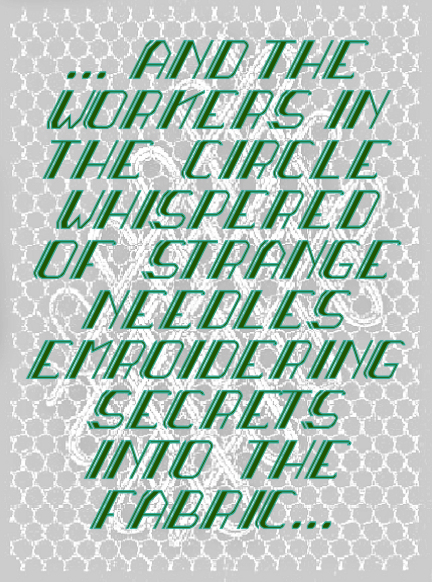
•  I wanted to try some 'deformation' of the perspective used for italic glyphs. It was fun to try, the font looks amusing and the slants are irreverent enough. I know that a word processor could change Raysan into an italic style but a word processed Raysan would be too predictable and without creative spark.
Despite the purposeful changing of lines specially the curved sections which don't follow any "perspective rule" this font looks italic. It has a pleasant rythm in longer headlines etc, and gives eye catching 'splash' text when used with the parent font.
It took quite a while to finish, I constantly fought the wish to make composites and stacks to get the correct shape and directions into the curves.
It's beautiful. I can even imagine a clone with an outlined dot in the middle (that'd add to the elegant/rich style, perhaps)…
… a black static bullet, that is (vs a white mobile flower in your very nice "Raysan Decor").
Is the slant 30* or 45*?
* = degrees
@xXx XBox Gamer - Just eyeballing the L and T, I'm guessing it's a 30°-60°-90° set of angles for the slant.
It should be 60° from the 1x2 set of 2 standard bricks
xBox, I used the 2 standard bricks for slopes,1x2, that should give a 60°angle. Thanks Goatmeal :) dpla, I'll try it -- but I fear that a decorative element will "take over" the look as the lines are quite narrow?
To me, it would be 30°. Because I go from the intersection of the 2 Axis.
@xXx XBox Gamer - You are correct.  Also, the complementary angle on the other side (such as the angle formed on the L) would be 60°.   :^)
Beauty, I mean angle, is in the eye of the beholder?
Actually, the bullet idea might add a subliminal pivot, and enrich the glyphs (this would split the repetitive lines). Anyway, congrats!